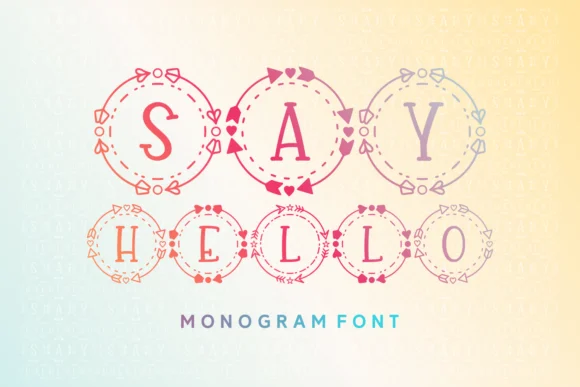
Say Hello Font
The Say Hello Font is perfect for playful branding, greeting cards, social media graphics, children’s books, and fun product packaging. Its cheerful, hand-drawn style brings warmth and friendliness, making it ideal for projects that want to feel approachable and full of personality.
What makes the Say Hello Font Free Download so exciting is its lively, whimsical design. Each letter exudes charm and creativity, giving your text a joyful, welcoming vibe that instantly connects with viewers. It’s a font that makes every message feel personal and engaging.
The Say Hello Font family includes several variations such as Regular, Bold, Italic, and Shadow styles. These options allow for versatile typography, letting designers create playful compositions with depth and character while maintaining a cohesive and fun aesthetic.